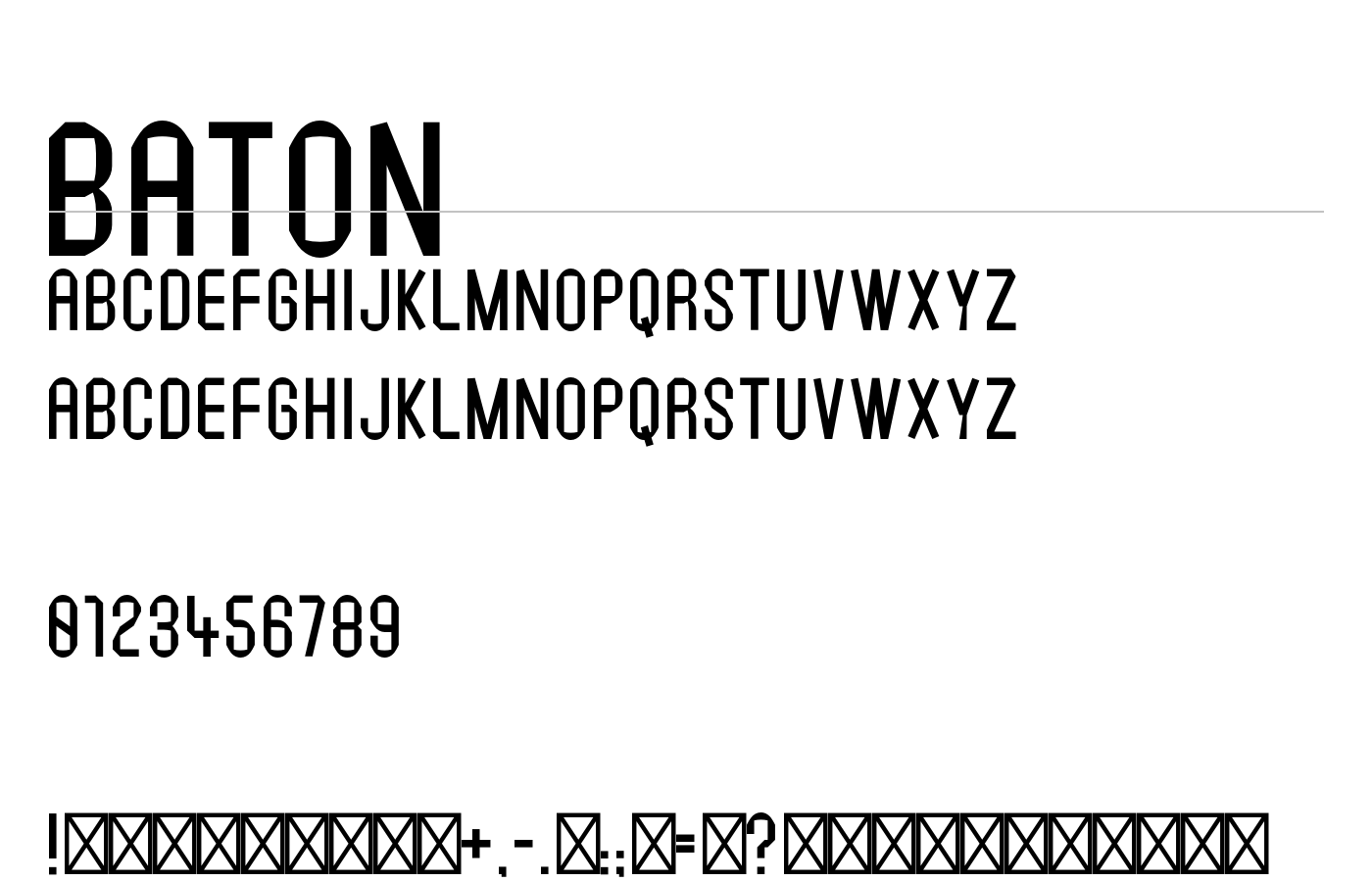
Baton is a condensed, sans serif font with a modern and geometric design, characterized by its tall, narrow letterforms and consistent stroke weight. Its clean lines and minimal contrast give it a strong, technical feel, making it ideal for bold headlines, branding, and editorial use where a contemporary, industrial look is desired. This font works especially well in projects that need a sharp, professional presence without sacrificing readability.
Baton Font